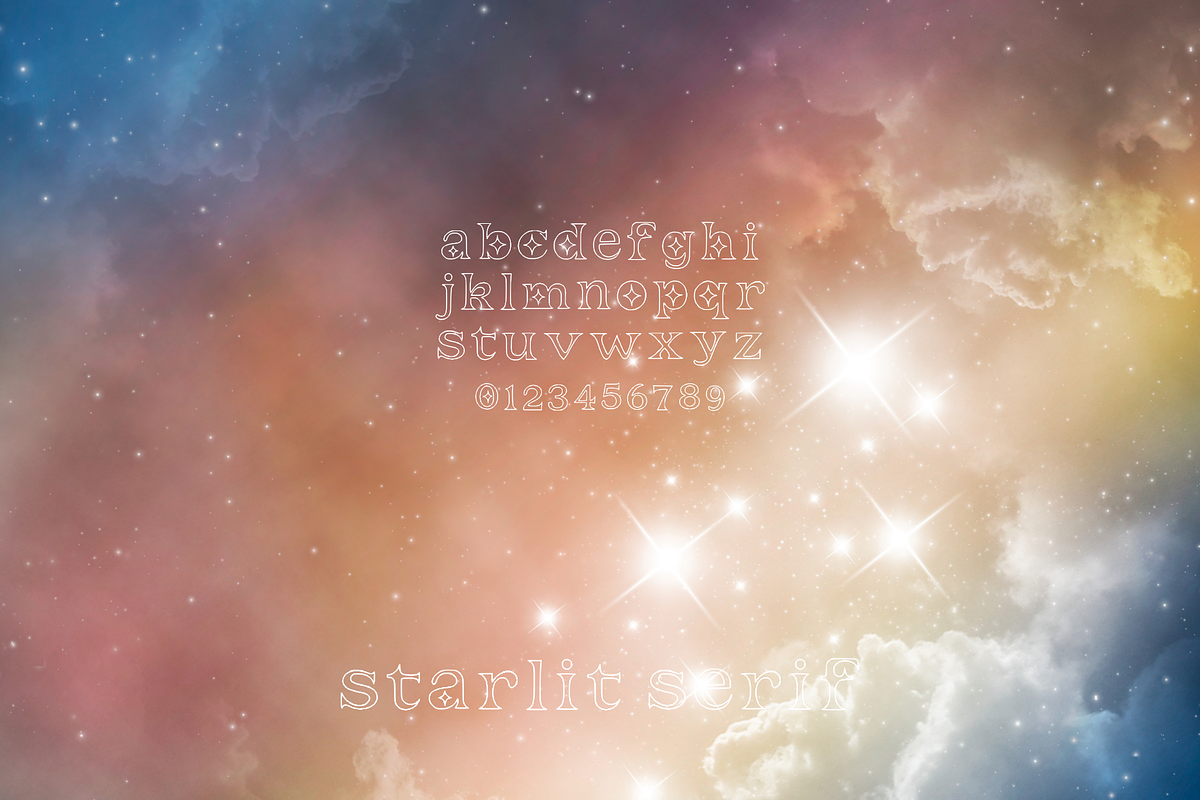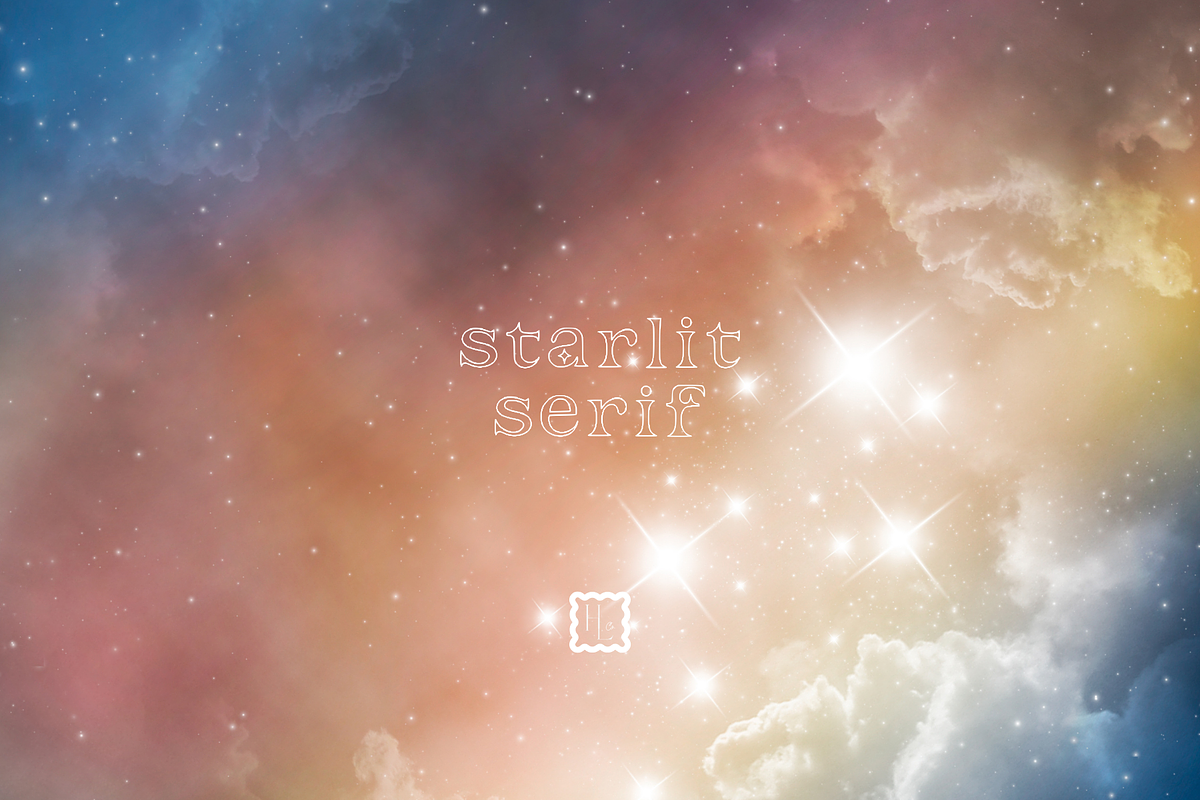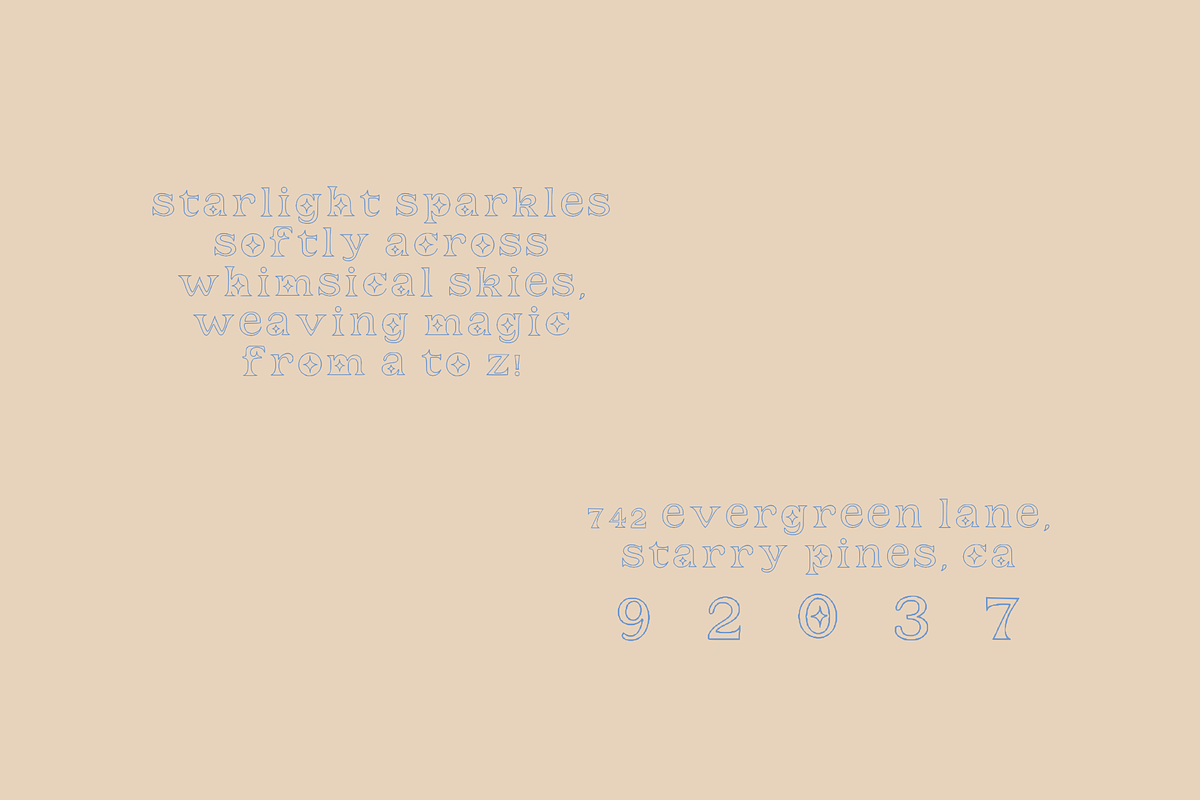
Starlit Serif
Starlit Serif is a whimsical, fine-line serif font with celestial charm—perfect for dreamy branding, wedding stationery, and nostalgic designs. Featuring A–Z, numbers, and simple symbols, it brings a hand-drawn, starlit elegance to any project. Includes both TTF and OTF file formats for easy use.